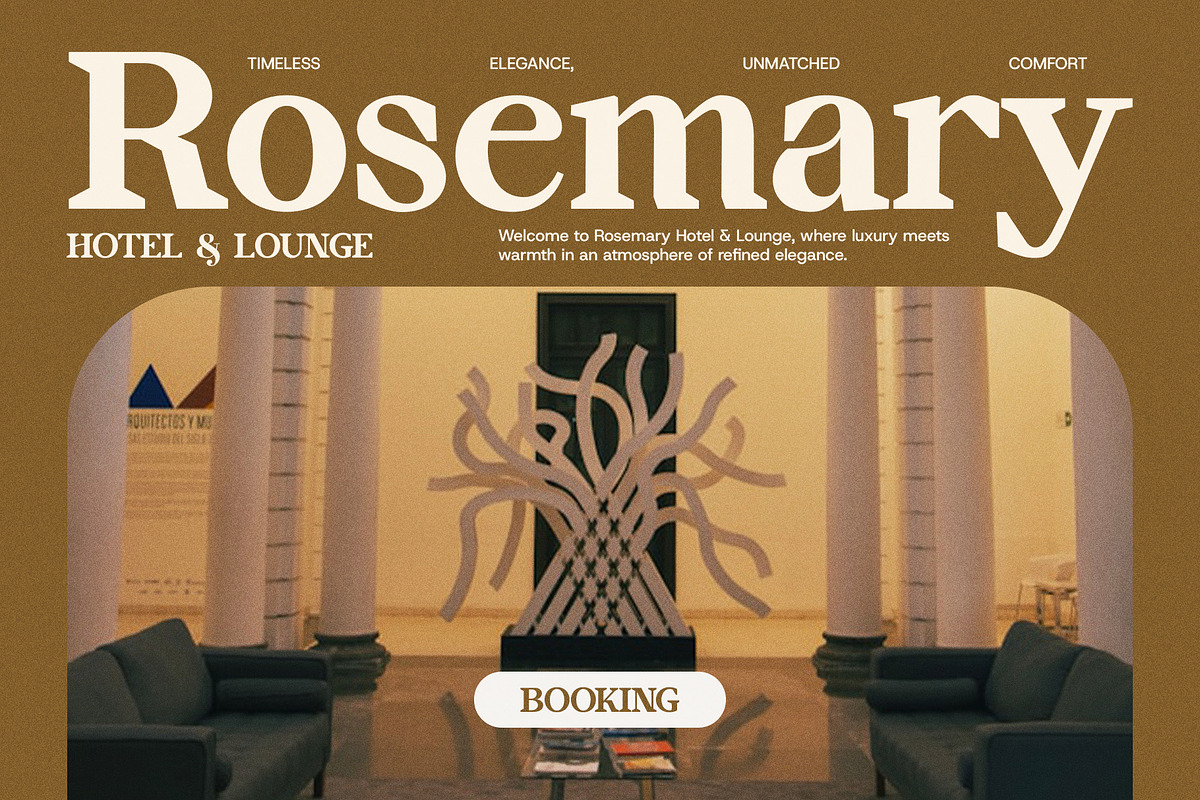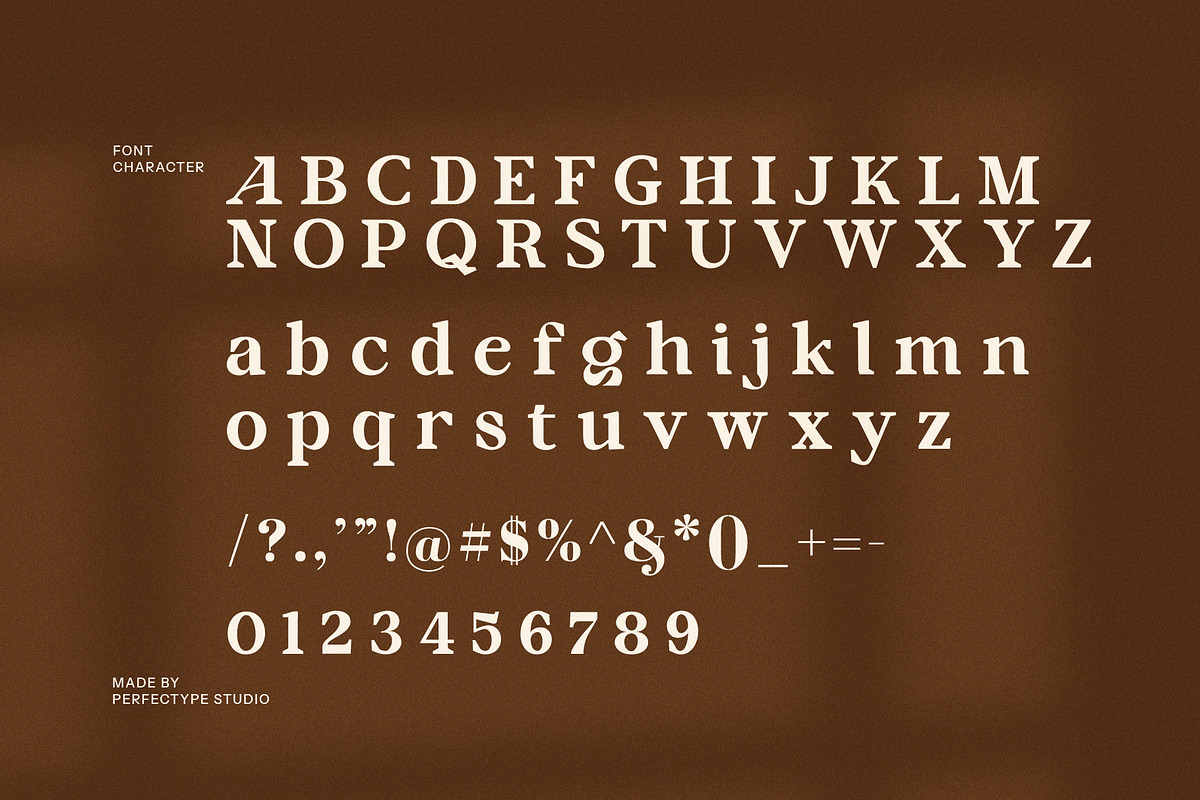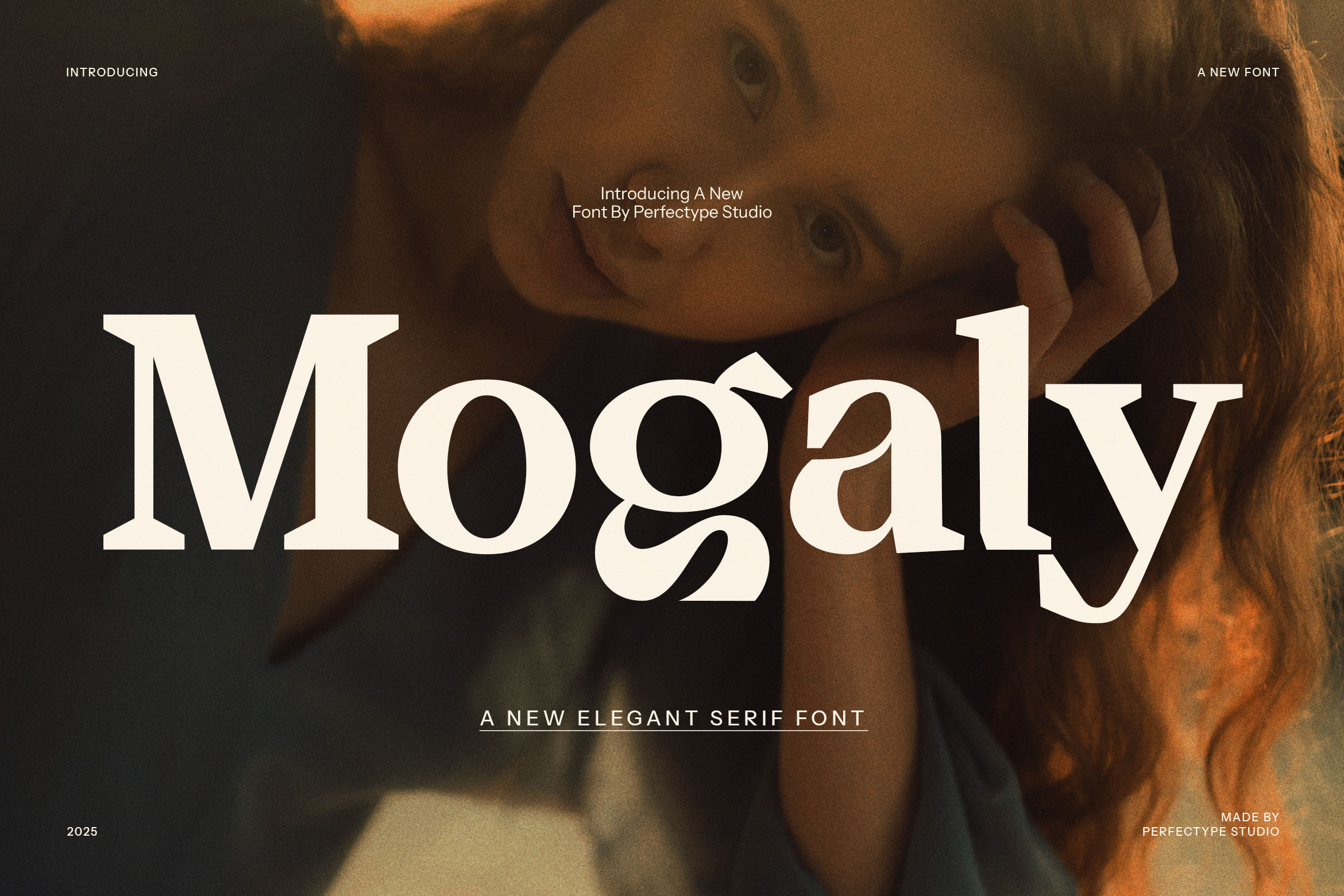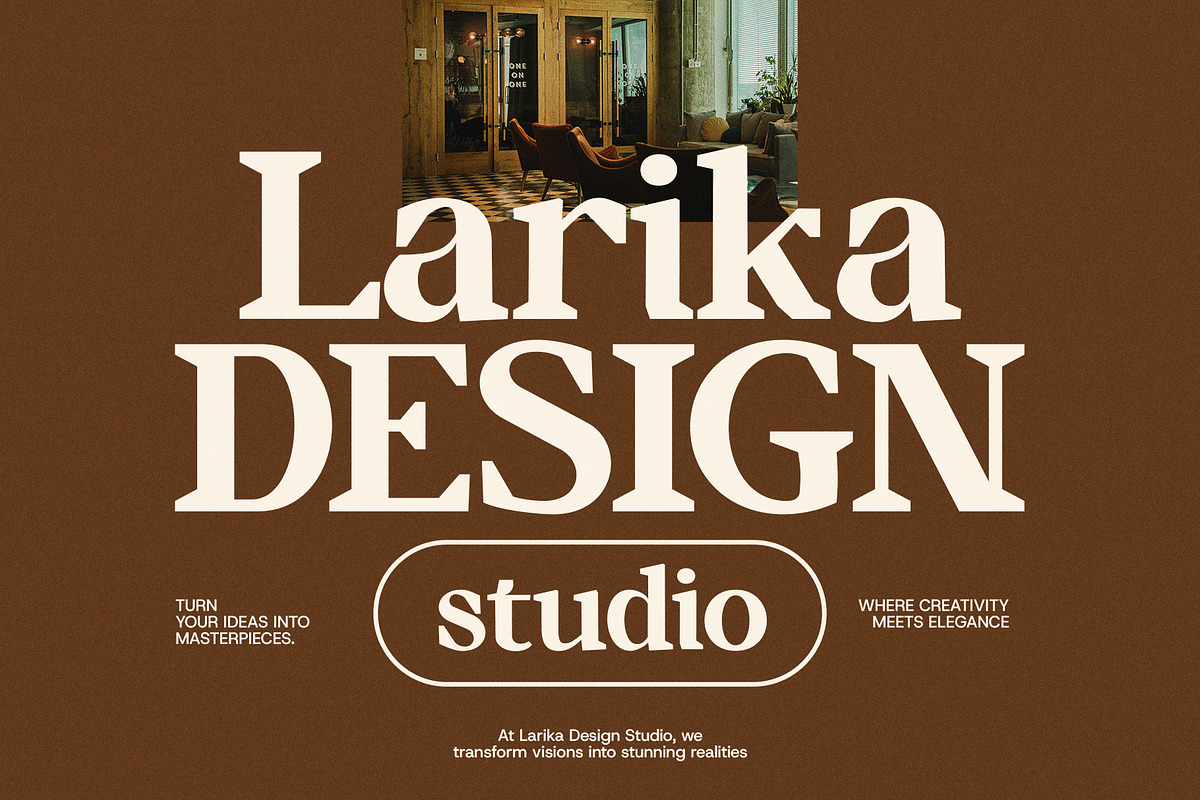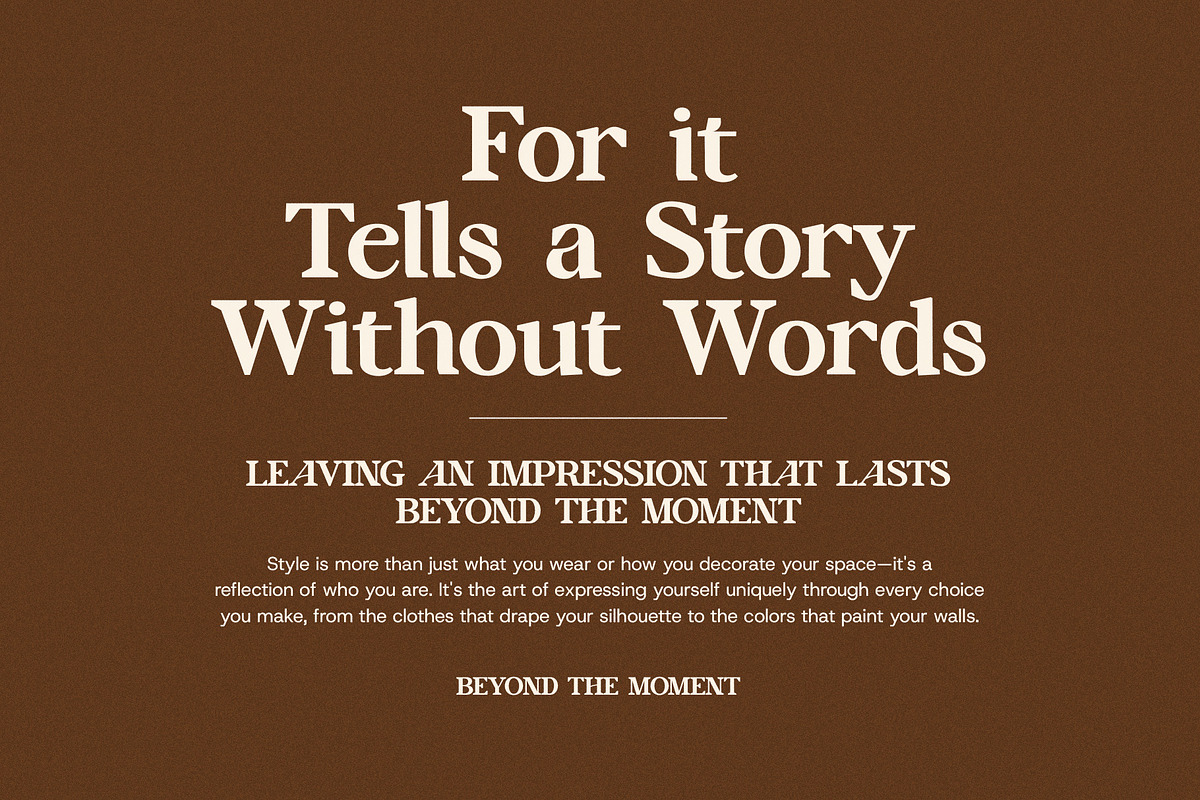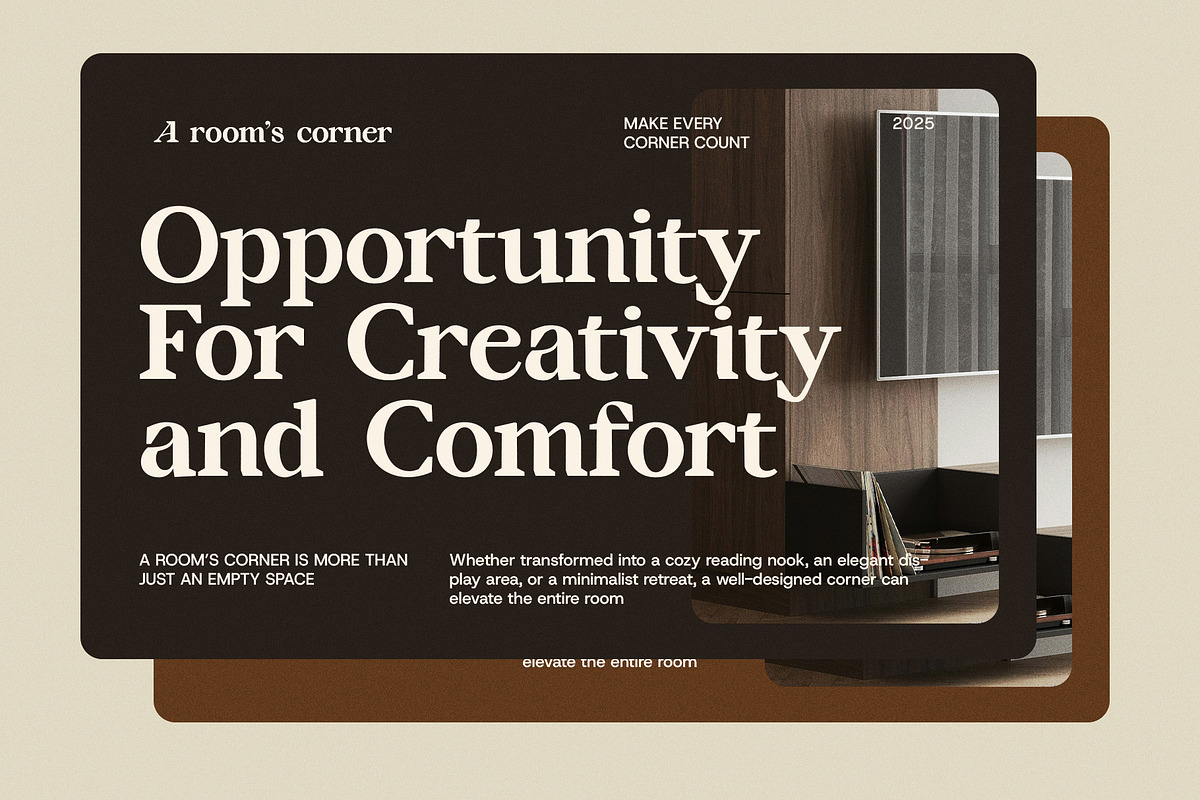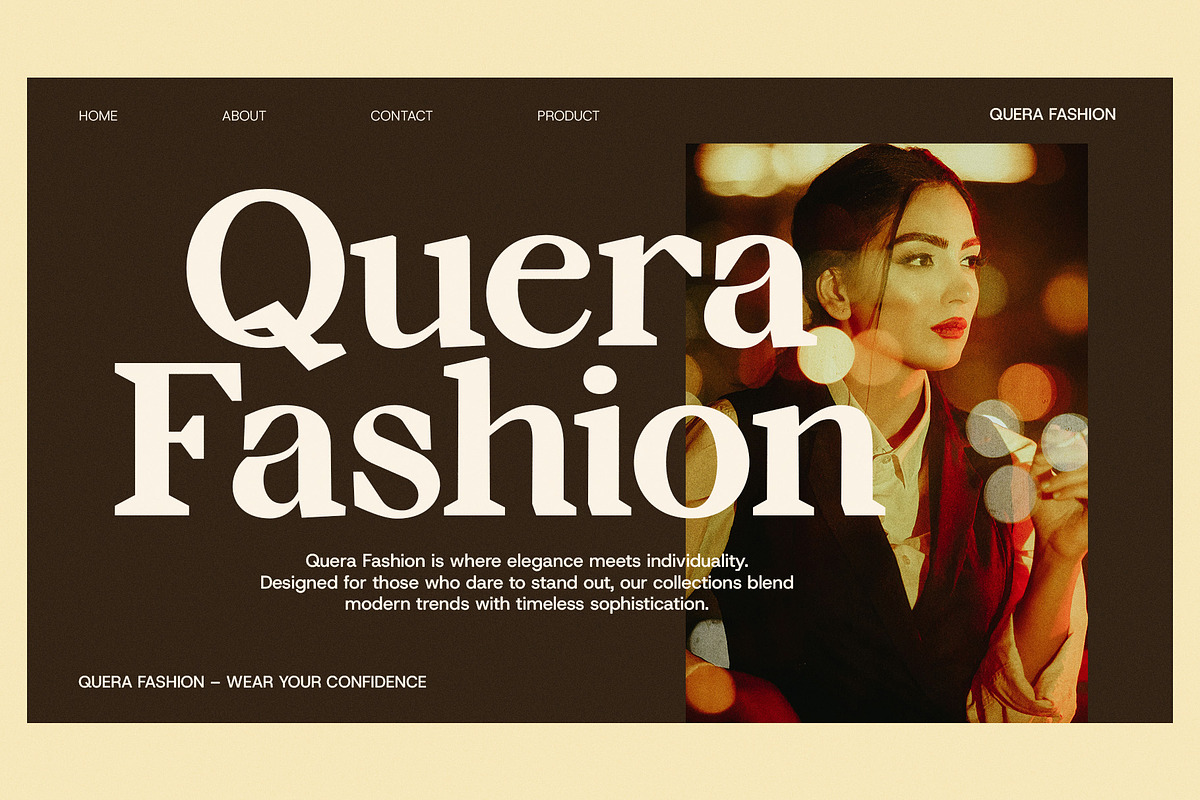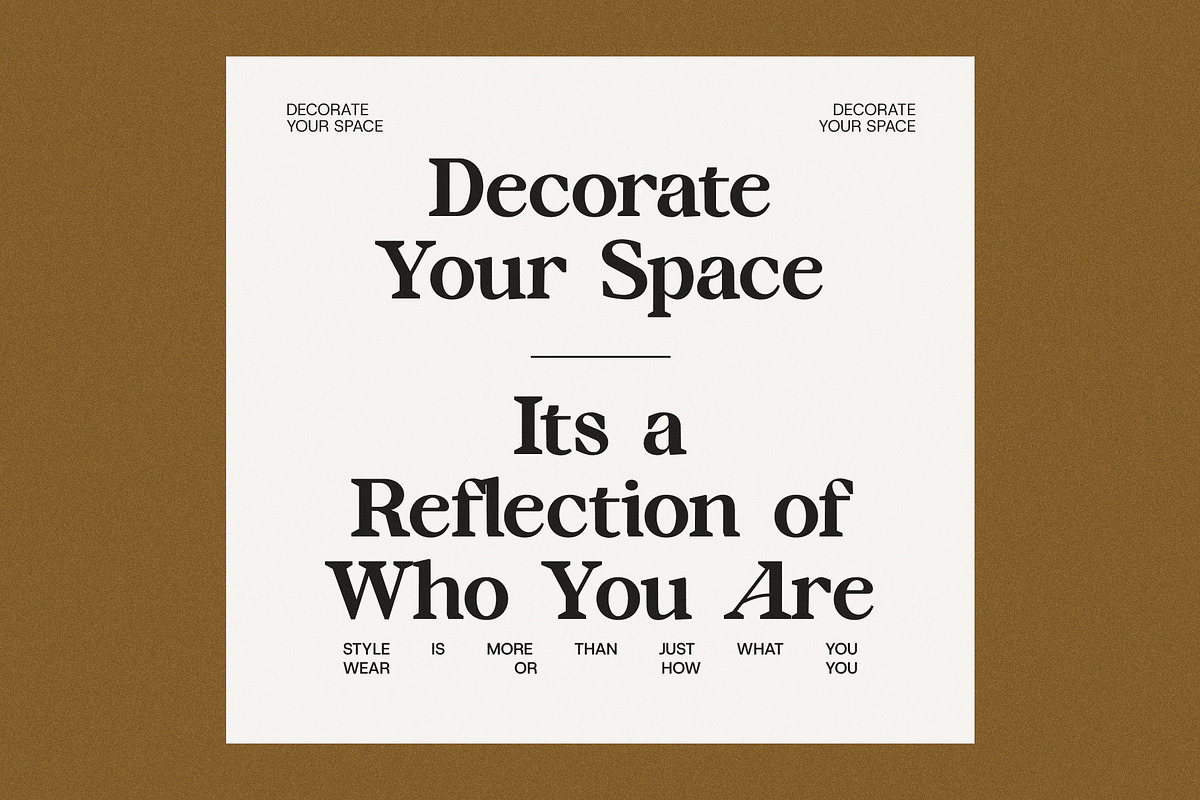
Mogaly Elegant Serif Font
Mogaly Elegant Serif Font is a stunning blend of modern sophistication and timeless elegance, designed to make any project stand out. This versatile typeface is perfect for a wide range of applications, from luxury branding and high-end logos to stylish magazines and upscale websites. With its carefully crafted letterforms, Mogaly brings a sense of refinement and class to every design it touches.
What sets Mogaly apart are its unique ligatures and alternate forms, which offer designers the ability to create truly distinctive typography. Whether you're designing for a boutique, restaurant, or an exclusive product line, this font will elevate your creative work with its refined curves and stylish details.
Mogaly's well-balanced structure ensures excellent readability, making it an ideal choice for both print and digital mediums. Its elegant yet modern aesthetic provides an effortlessly chic look, while still maintaining the functionality needed for clear communication. Whether it's used for large headers or body text, Mogaly delivers a polished, high-end feel that resonates with luxury and sophistication.
This font excels in applications such as product packaging, advertising campaigns, magazine layouts, and corporate branding, but its versatility stretches far beyond. It is also perfect for invitations, personal projects, and anything that demands a premium, elegant touch. With Mogaly Elegant Serif Font, your design projects will exude style, beauty, and refined taste..